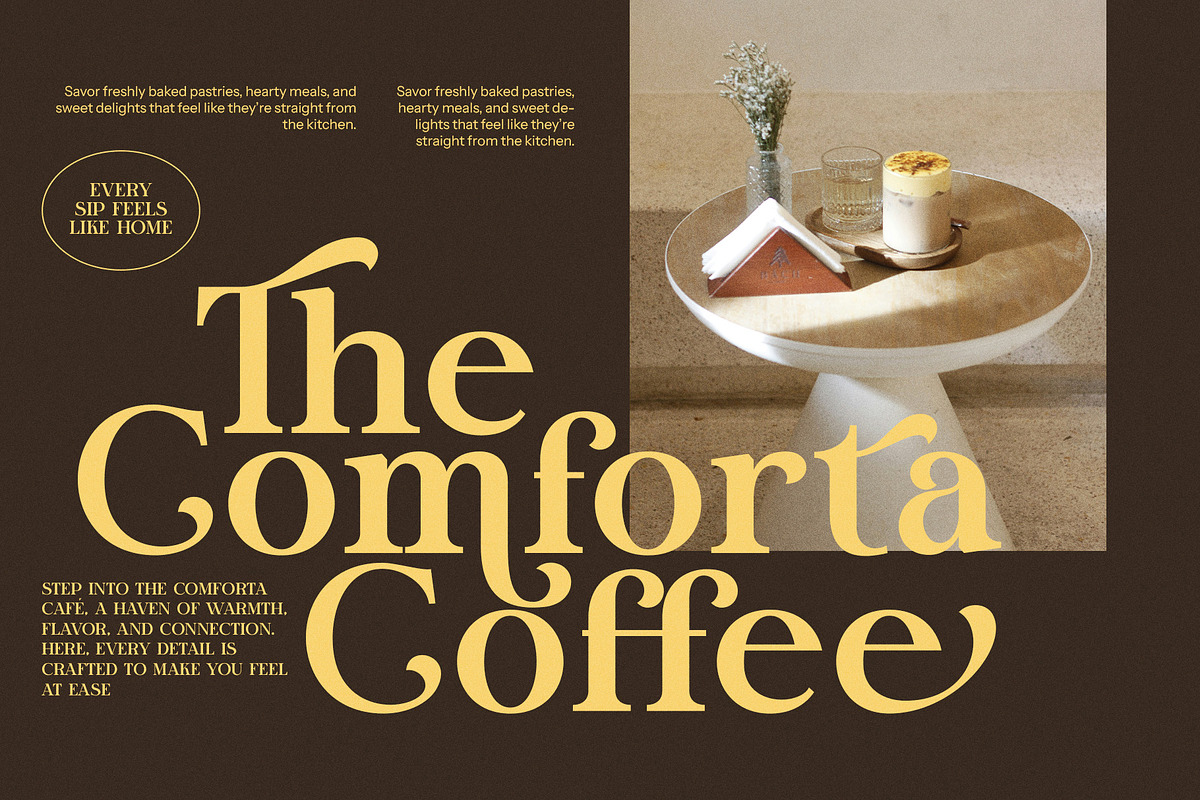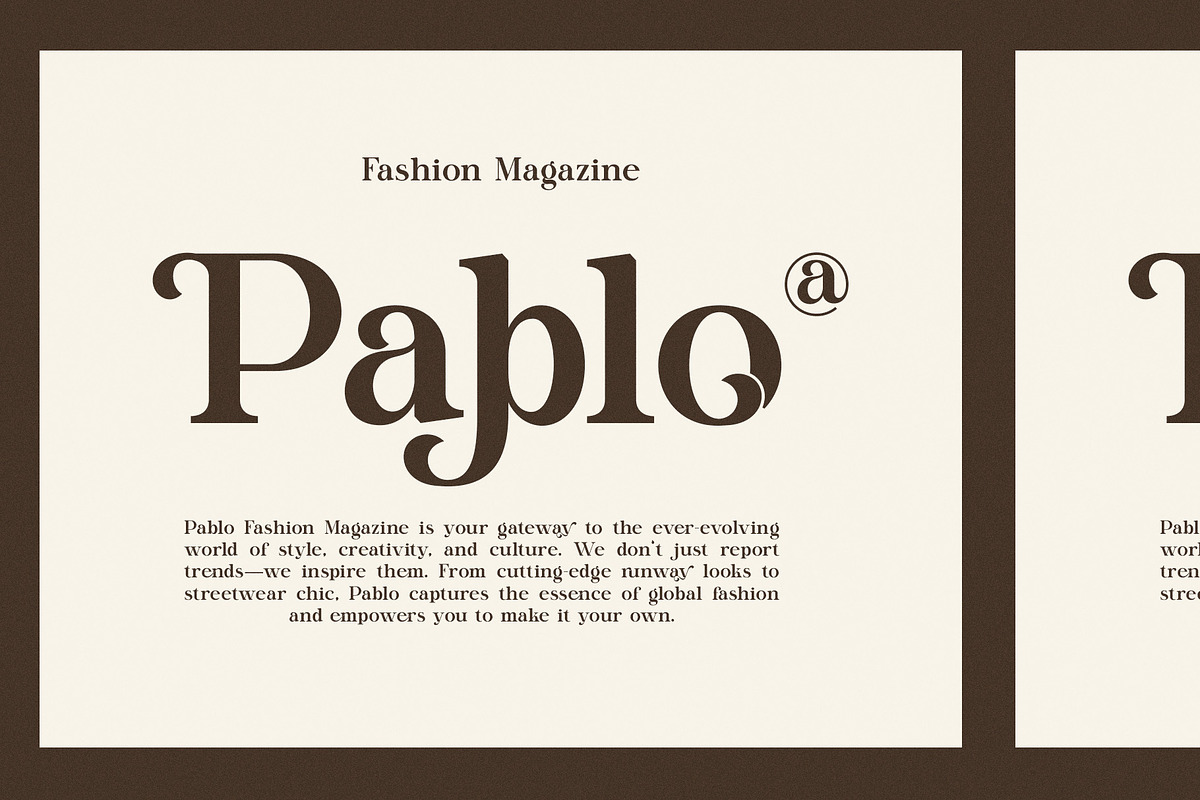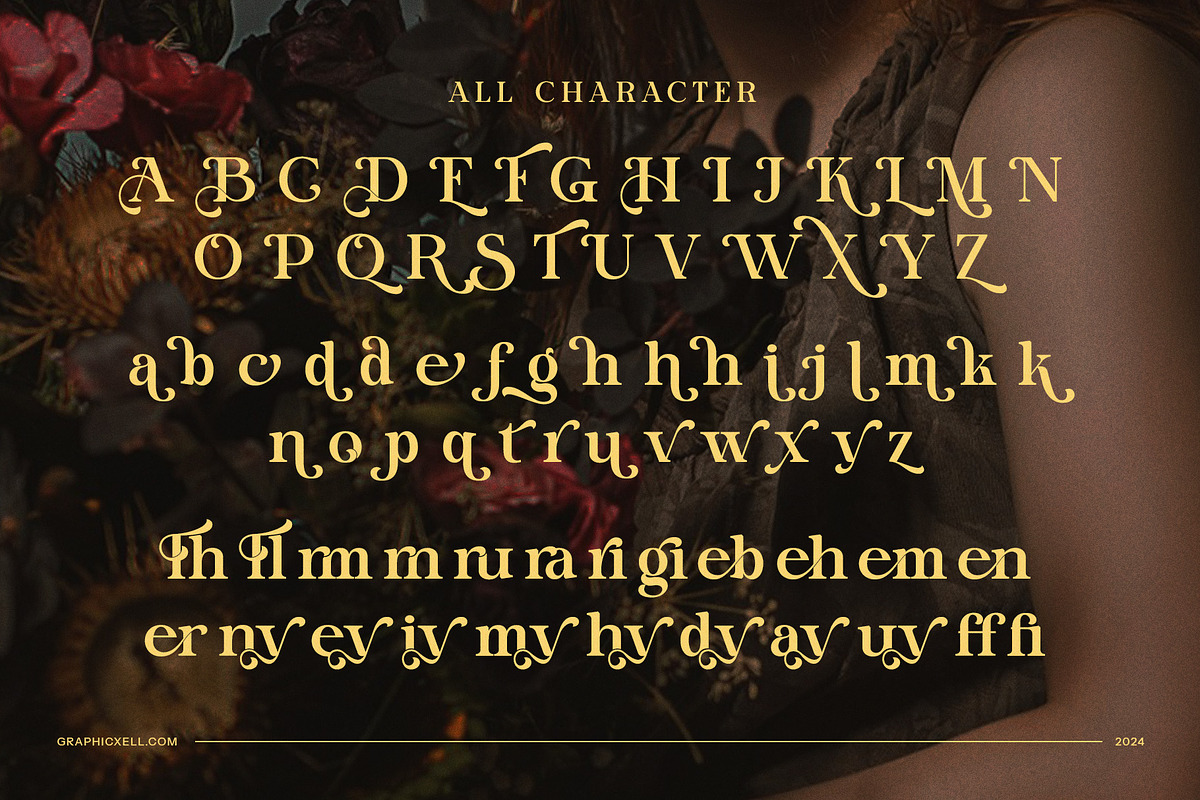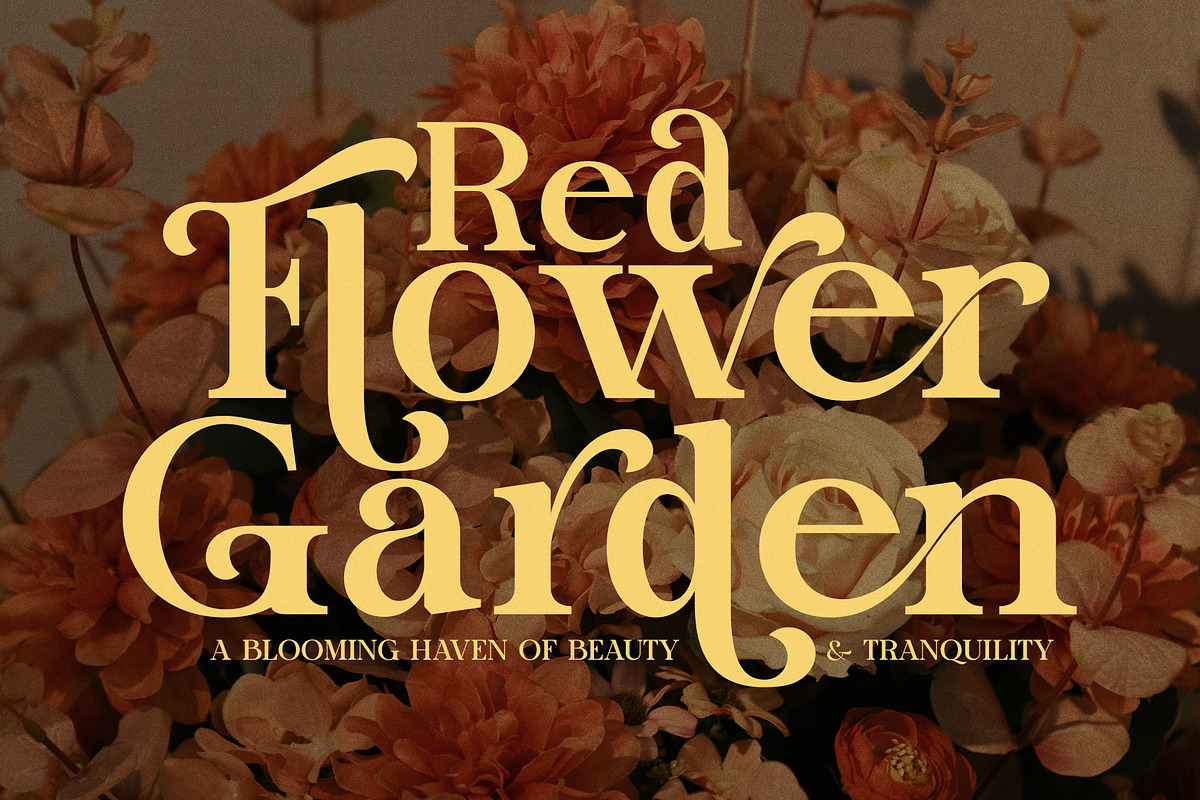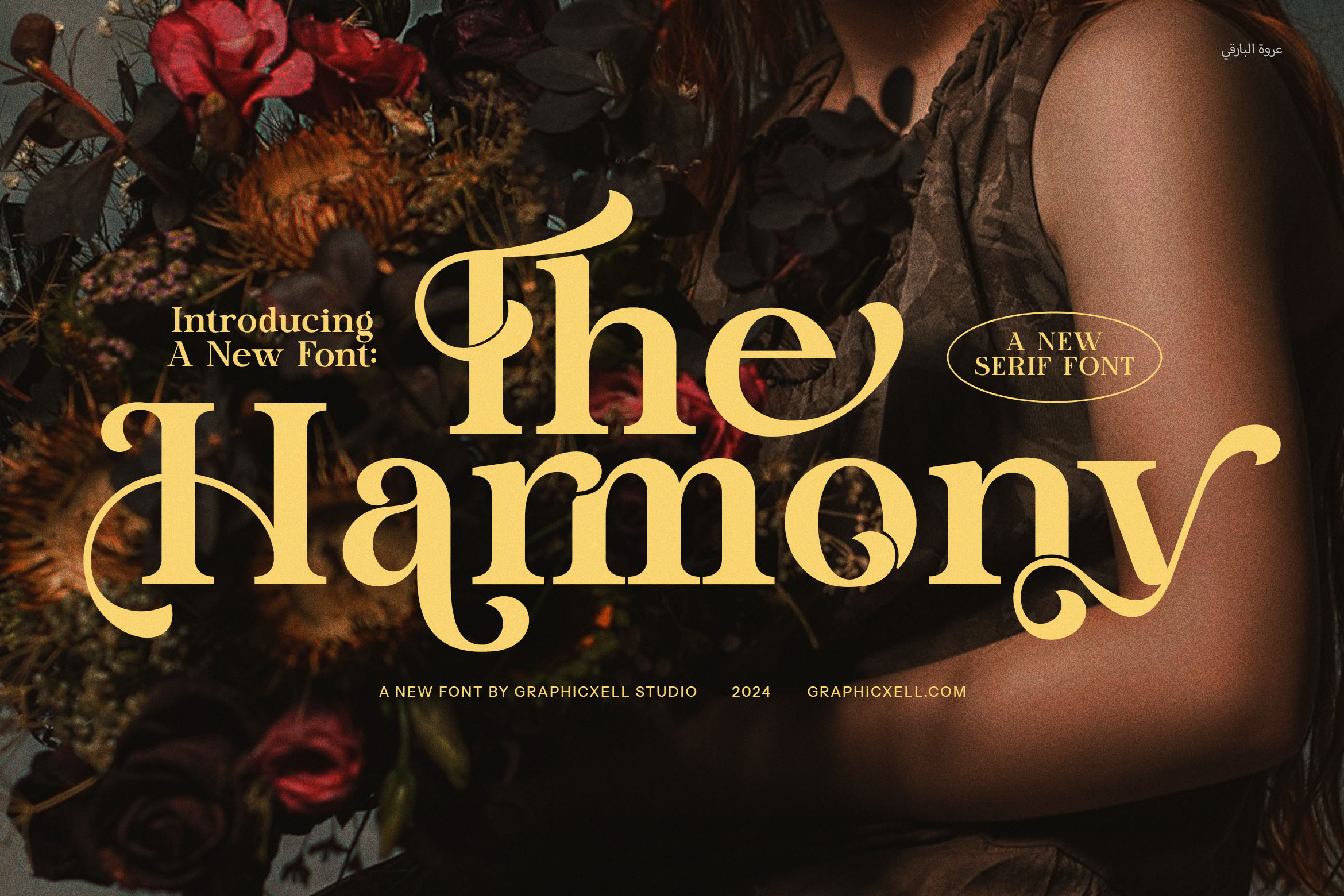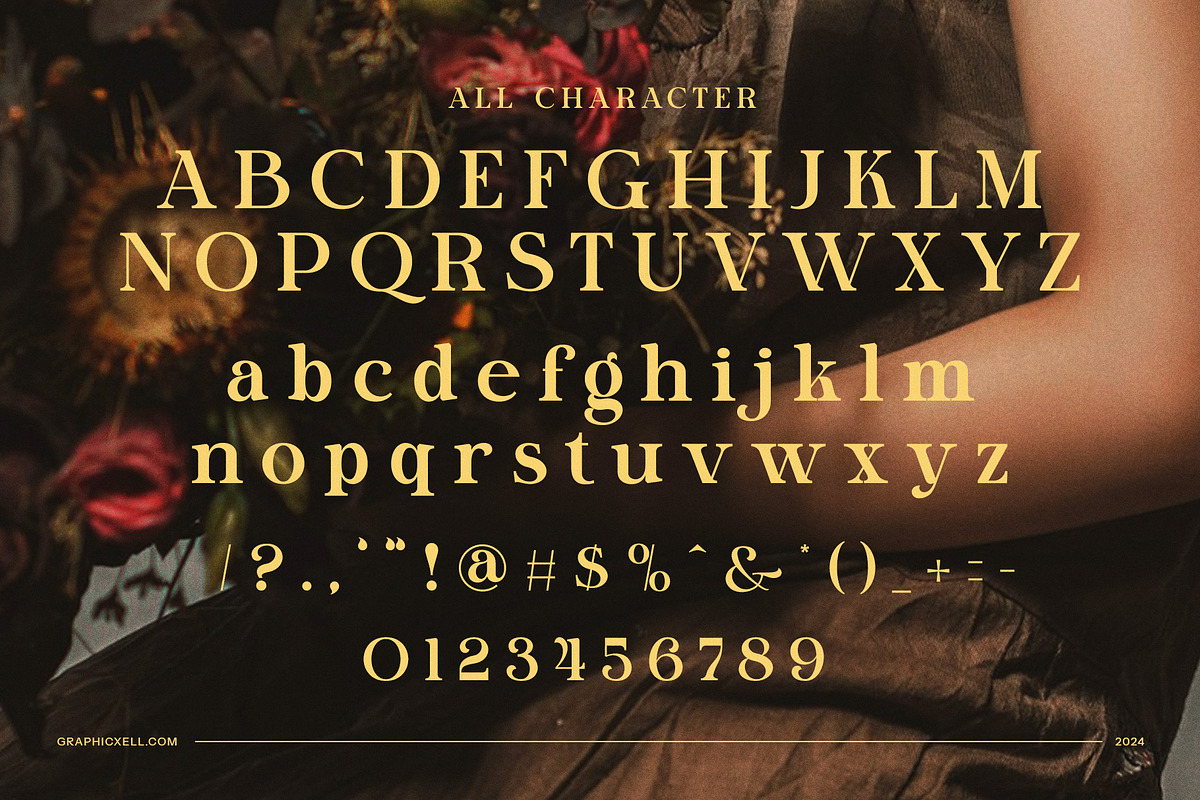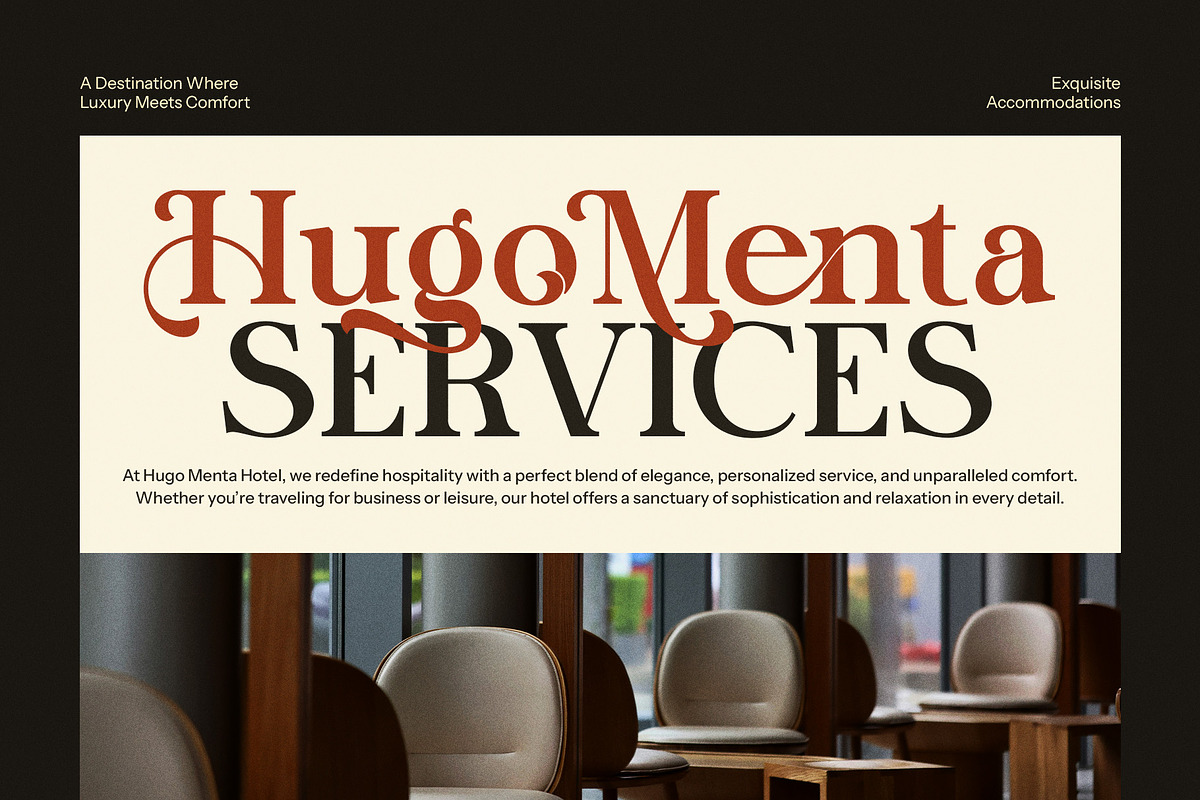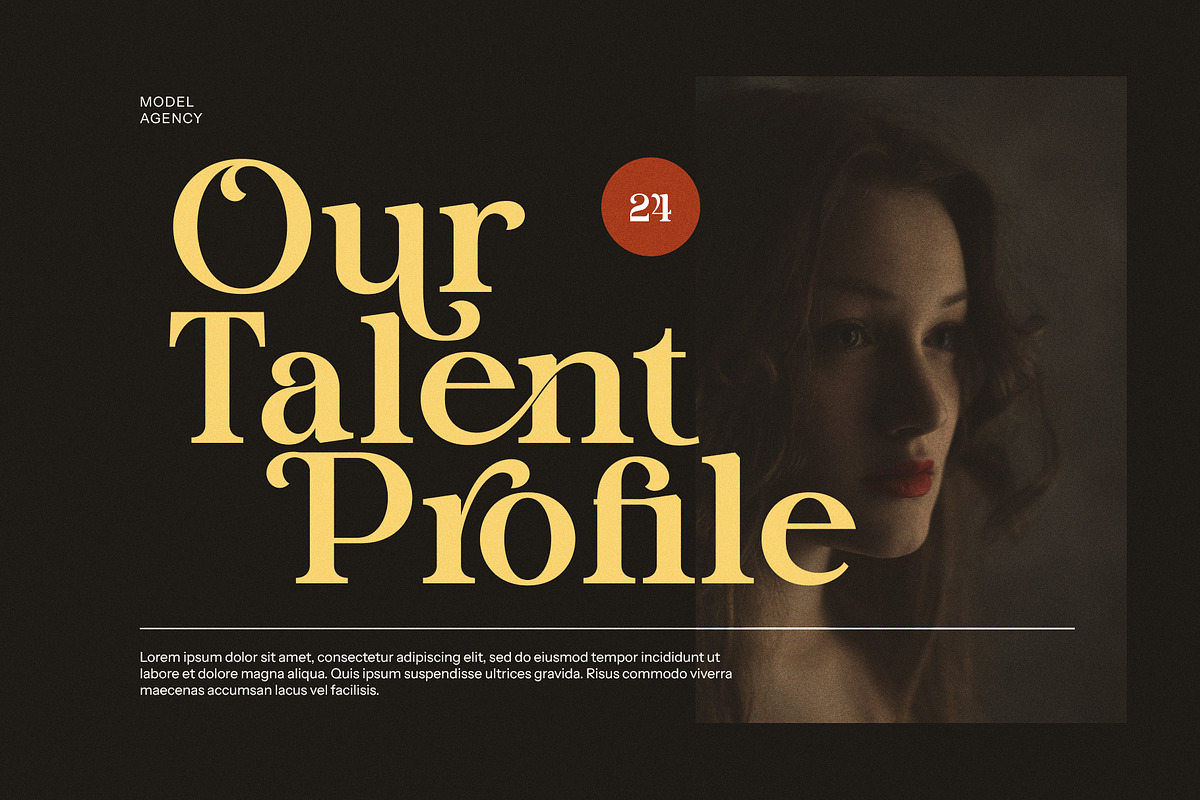
The Harmony Elegant Serif Font
The Harmony Elegant Serif Font is a masterful fusion of modern design and classic elegance, crafted to bring a touch of sophistication to any creative endeavor. With its sleek serifs and harmonious curves, this font exudes a refined charm that effortlessly elevates the visual appeal of your projects. Its distinct shape and balanced proportions make it a versatile choice for both contemporary and traditional design applications.
The standout feature of The Harmony lies in its beautifully crafted ligatures and alternates, offering a wealth of creative possibilities. These elements provide designers with the flexibility to add unique and personalized touches, enhancing the overall aesthetic of their work. Whether it’s a striking logo, a chic branding campaign, or an elegant website, The Harmony adds an air of sophistication and style.
Perfectly suited for upscale branding, editorial layouts, and luxury product packaging, The Harmony’s refined design ensures readability while making a lasting impression. Its modern elegance makes it ideal for fashion boutiques, gourmet food brands, high-end magazines, and more. Its adaptability across digital and print platforms ensures a seamless integration into various design projects, making it a valuable asset in any designer’s toolkit.
The Harmony Elegant Serif Font is more than just a typeface—it’s a symbol of refined taste and creative excellence. Its blend of modern sophistication and timeless beauty makes it a standout choice for those seeking to create visually compelling and memorable designs. Whether for bold headlines or subtle body text, The Harmony delivers a polished and cohesive look that resonates with elegance and class.